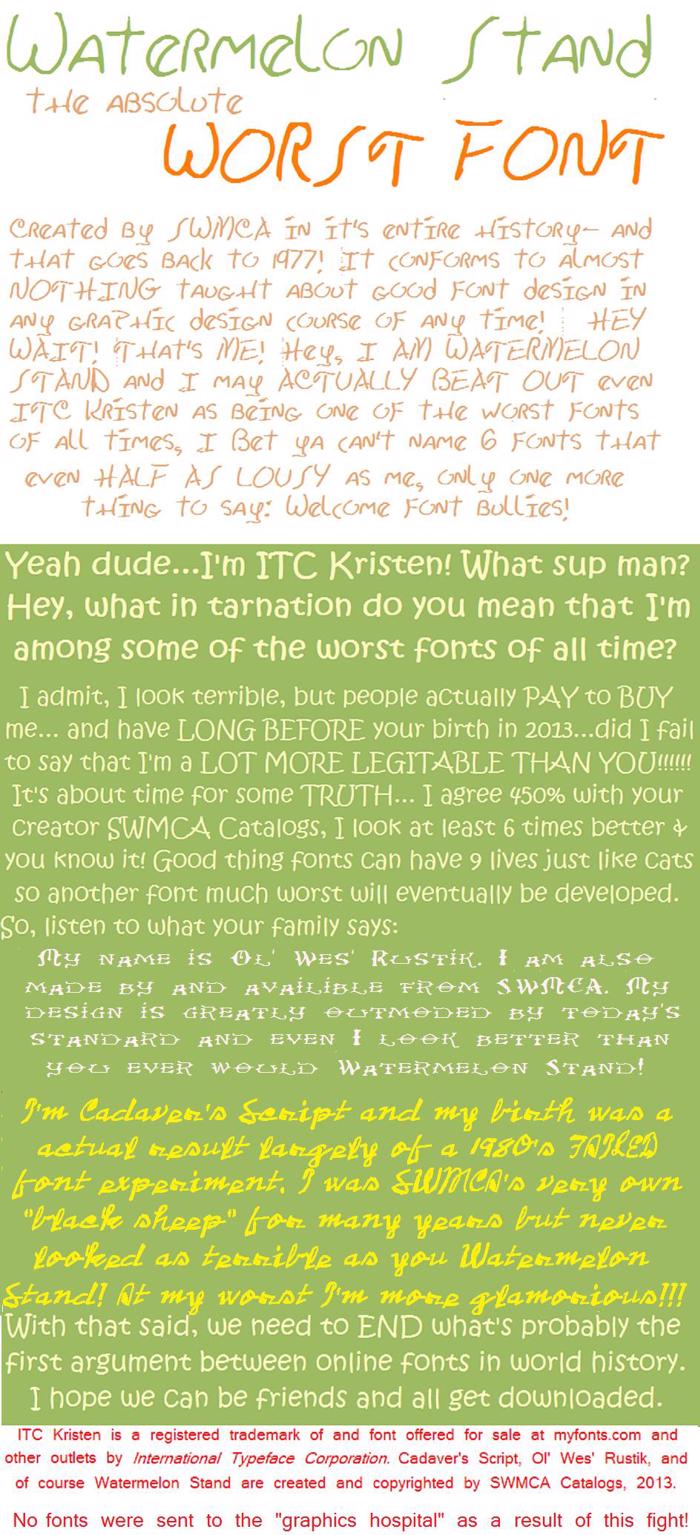
Watermelon Stand I Font
The font current has been updated. This a replacement for the recalled previous version. It now has 164 characters. We plan to add more. We plan to complete or do 5 more fonts too. Watermelon Stand will soon go from just being a single typeface, to becoming a typeface. Some of this work was started prior to the company's reorganization beginning in 2016. Because of our recall, replacement copies of the original font were designated as Watermelon Stand I. Once this becomes a typeface, it's individual fonts will be named by roman numerals, instead of style destinations. The additional fonts are planned to be introduced publicly from the year 2020 until 2022.
This font was inspired by the lousy writing on hand written signs at many watermelon stands in the Midwest (USA), hence the name. ITC Kristen was also a food related lousy font designed after lousy scribbles on restaurant menu boards. As with ITC Kristen and Walt Disney's handwriting which was later digitalized...along with a couple dozen other fonts of this era. Watermelon Stand is of extremely terrible graphic design...and designed that way on purpose giving it a more typical and less "rehearsed" mimic of a more average "common folks" handwritten styling.
Everything of good (or at least tolerable) penmanship is absent here. Even parents and teachers with some of Earth's worst bad writing skills would not dare use this font to teach kids how to write. Almost everything of good graphic design is gone too. The letters are more uneven than even most lousy handwriting both in font and "at the scene" written form. In addition, the only major descender of the lowercase is the "y" character. Why? [you decide!]
Usually even with people who mix caps with their lowercase letters (officially called uni-case or uncial letters, depending on the actual forms of the letters), at least the "j" and "p" are also descender characters, not here buddy. Practically all techniques of good type design went out the window with this font. Hey, what's wrong with that? Many celebrities have writing actually worst than this font and commonly with writing that's barely legible. This is the Watermelon Stand font and about as close to chicken-scratch as a font can get and still be totally readable.
The caps in Watermelon Stand were patterned somewhat by the Walt Disney handwriting which was used from the beginnings of that company and even today, many years after his death. The numbers and about half of the lowercase was created directly by my SWMCA operation, while the rest using the personal writing of the late Kelly Sheckells, who will be sorely missed (went to Heaven 2012) as a guide.
We've decided NOT to use all of Kelly's writing but only part of it as a guide for the lowercase due to the fact that the death was considered recent at the time of design and I had concerns regarding identity theft and plagiarism of her written works. While she certainly needed great help with penmanship, she was an excellent writer of poetry and other things as well as one of the best cooks in Missouri including at Arrowhead Stadium...where she actually cooked for the players of the Kansas City Chiefs along with their rivals (including the most scorned rival of all the Oakland Raiders when they were in town) and in her final years of life an organizer with ACORN and a excellent worker with the 2010 Census. It's very lonely without Kelly, whom was cherished right up to her death and even more now.
Now you see why they have calligraphy books and graphic design courses and schools! Imagine if all fonts where like this one! Can you imagine if the text in the newspaper or even on your cellphone's screen and the car's dashboard were like this? At least there IS a public service aspect.
(Seriously, WE'RE FOR REAL ON THIS ONE!)
This font can be a GREAT argument to why penmanship SHOULD be brought back to the elementary classroom. Compare it to your kids' writing. If their's is worse demand that the local school board work towards improving it by adding "writing skills" to the curriculum, and if it's better insist that you don't want your child's writing to NEVER, EVER get to the level of THIS FONT!
HINT: Hurry up before SWMCA decides to create a cursive version for the Watermelon Stand font!
Don't worry neat writing fanatics, we're fine with Watermelon Stand. There are no immediate plans for a font named "Watermelon Seed and Rind".
WARNING:
THE NEW WATERMELON STAND FONTS COMING OUT; WILL CONTINUE TO JUST AS LOUSY AS THE ORIGINAL, PROVIDING THAT THEY DON'T TURN OUT TO BE FAR WORSE!